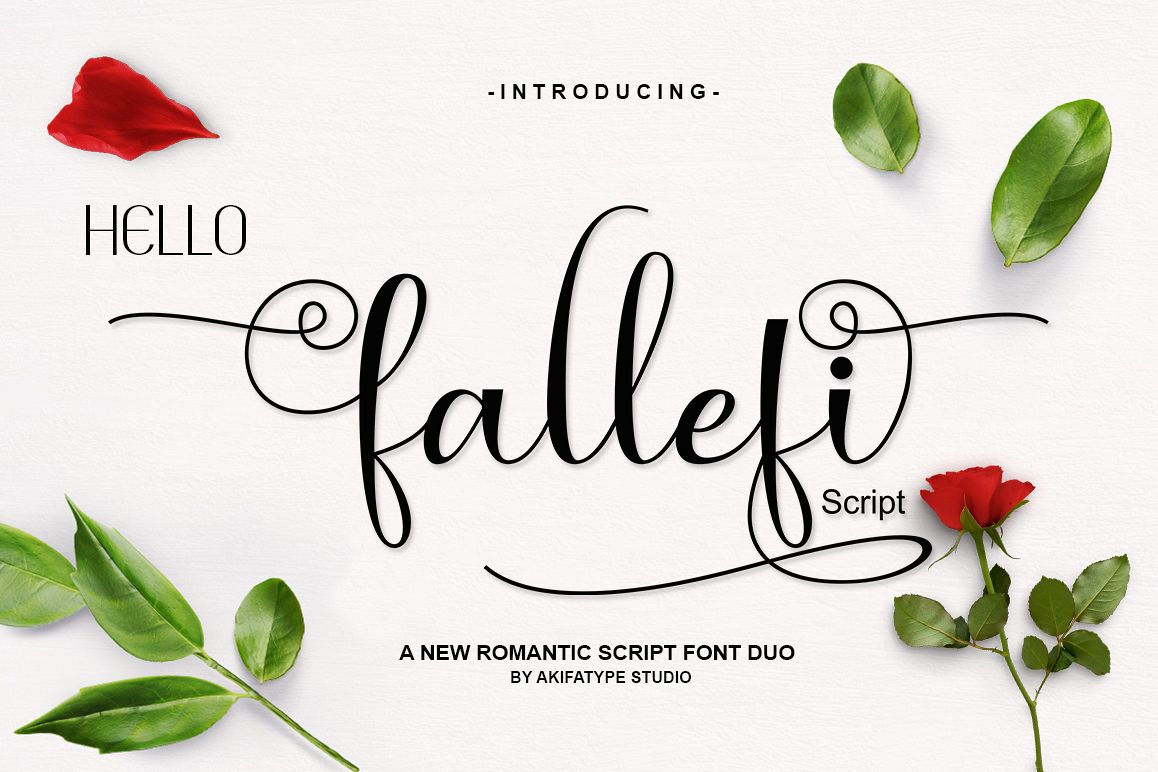
fallefi - Font Duo
Fallefi Sans
fallefi
Fallefi Font Duo is a romantic typography. bold, elegant & fun vintage letters and sans serif fonts. Can be used for various purposes. Such as logos, wedding invitations, t-shirts, letterhead, signage, news, posters, badges etc.